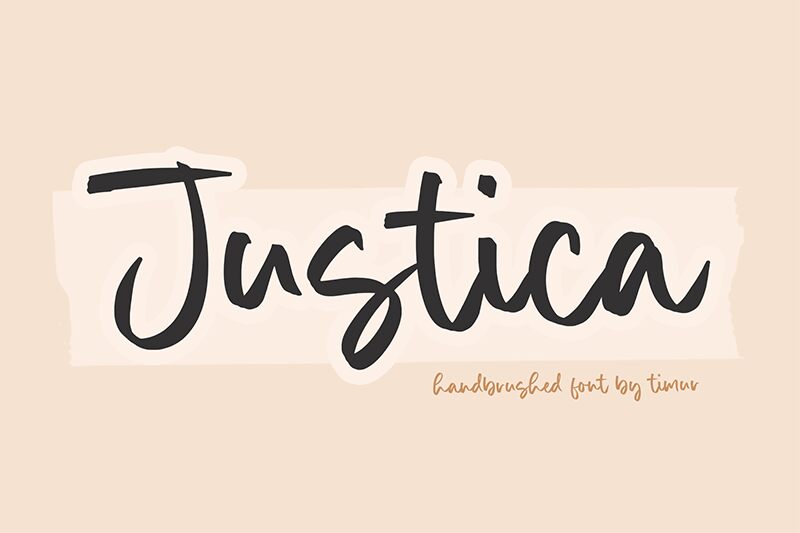
Justica, designed by Timur Type, brings the charm of personal touch to typography with its handwritten style. The font dances between casual elegance and playful dynamism, making it a delightful choice for conveying warmth and individuality. Each stroke tells a story of careful craftsmanship, while the subtle variations in thickness add depth and character.
This font's unique personality shines in settings that require an intimate, bespoke feel. From boutique branding to custom invitations, Justica can transform mundane text into a captivating message that resonates with its audience on a personal level. It's also well-suited for editorial work that demands a touch of humanity without compromising on sophistication.